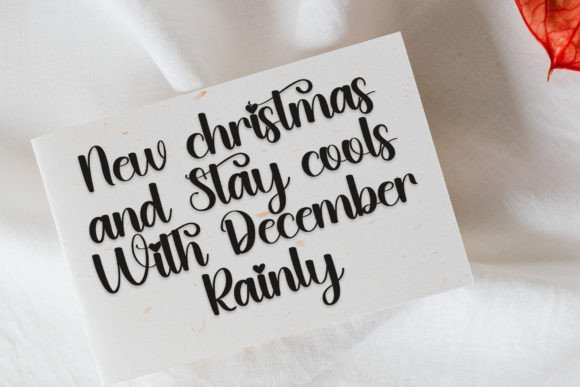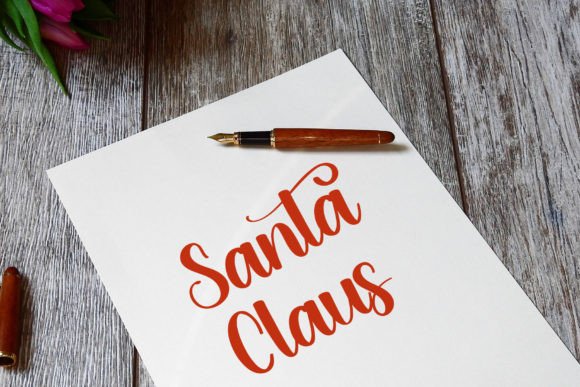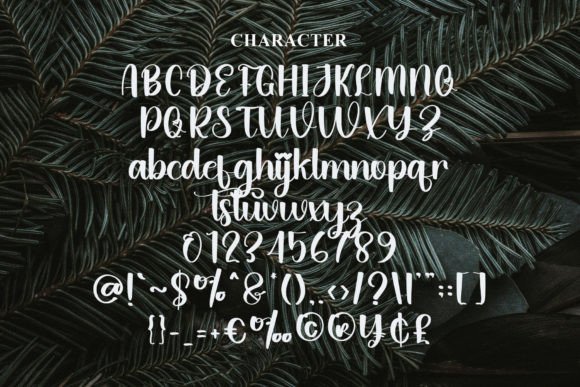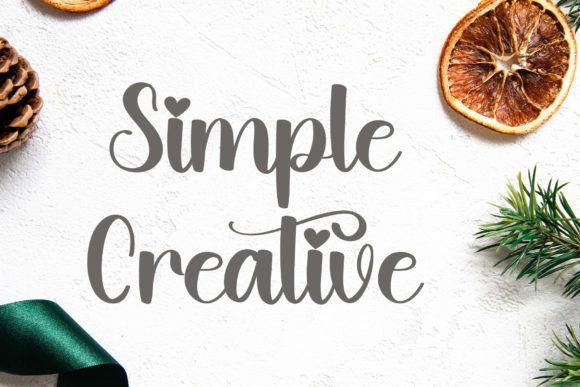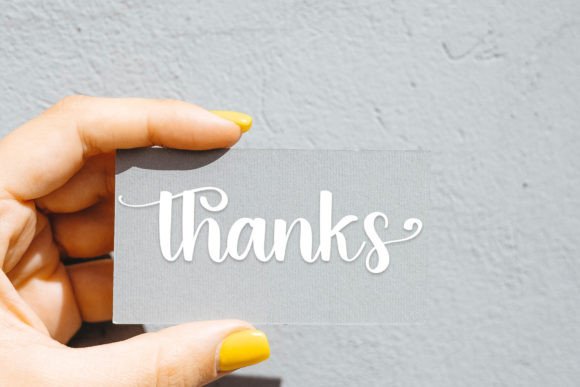
Get Ready to Deck the Halls with Christmas Cheer
As the snowflakes start to fall and the twinkling lights adorn the streets, the holiday season is in full swing. It’s a time for creativity, joy, and making memories with loved ones. For designers, it’s the perfect moment to bring a dash of festive magic to their projects.
That’s where Christmas Font comes in – a delightful typeface that embodies the spirit of the season. With its playful decorations and whimsical flair, this font is the perfect addition to your holiday-themed designs, from greeting cards and gift tags to social media posts and digital advertisements. By incorporating Christmas Font into your work, you’ll add a touch of warmth and nostalgia that will leave a lasting impression on your audience.
With its PUA encoding, accessing the font’s amazing glyphs and ligatures is a breeze, allowing you to unleash your creativity and let the magic of Christmas Font shine through in your designs.
Key Features of Christmas Font
- Font Family: Christmas Font is a unique, decorative font designed to evoke the spirit of the holiday season.
- Unique Characteristics: Features festive and whimsical elements, such as holly leaves, snowflakes, and ornaments, to add a touch of holiday magic to your designs.
- Font Weight: Available in Regular, Bold, and Italic styles, offering flexibility for different design applications.
Review: Christmas Font
First of all, let me say that the overall aesthetic of Christmas Font is quite festive and fun. It’s perfect for those who want to add a playful touch to their holiday projects. ✨ I love how the font is bold and eye-catching, making it ideal for headings and titles.
One of the best features of Christmas Font is its customizability. The font offers a wide range of colors and effects, allowing users to personalize it according to their needs. ✨ I also appreciate how the font is highly legible, even at smaller font sizes.
While Christmas Font is a great addition to any holiday design project, it does have some limitations. ⚠️ For one, the font can feel a bit too cartoonish for some users. Additionally, the customizability options can be overwhelming, making it difficult for beginners to navigate.
Overall, I’d say that Christmas Font is a solid choice for those looking to add a bit of holiday cheer to their designs. While it may not be perfect, its strengths far outweigh its weaknesses. With a bit of practice and patience, even beginners can create stunning designs with this font.